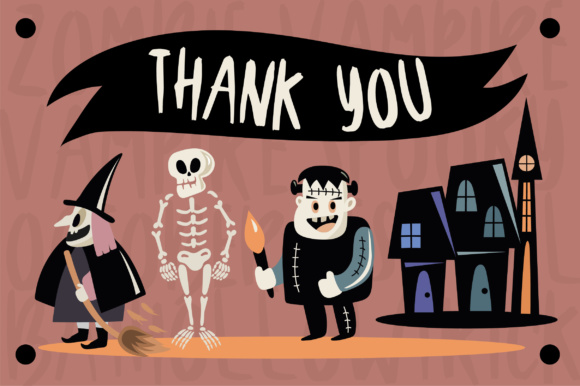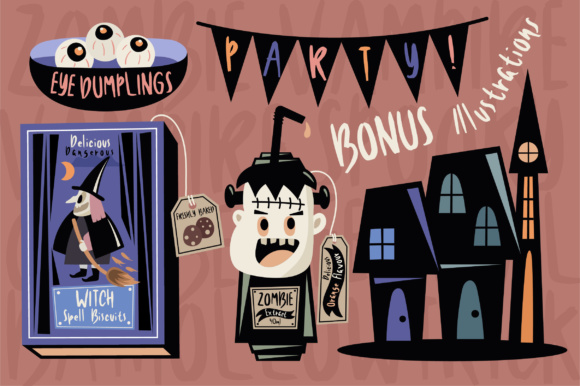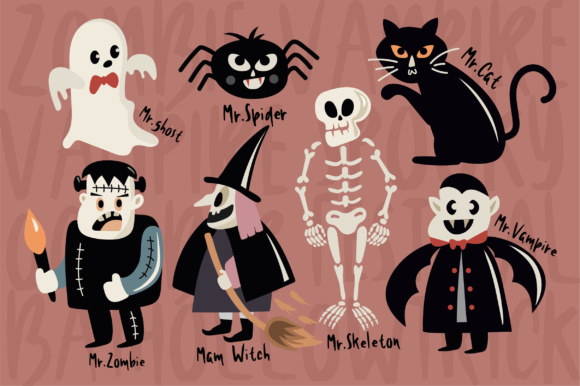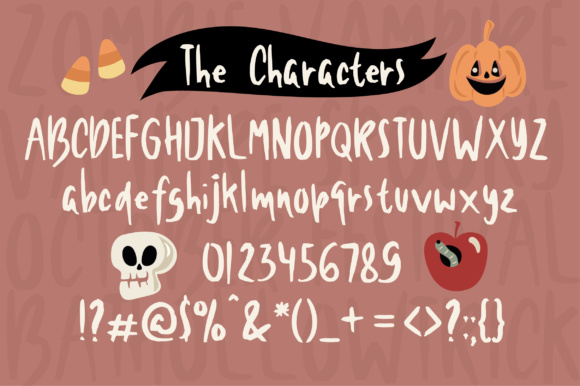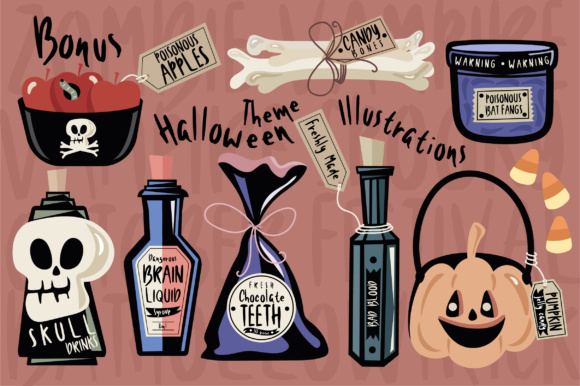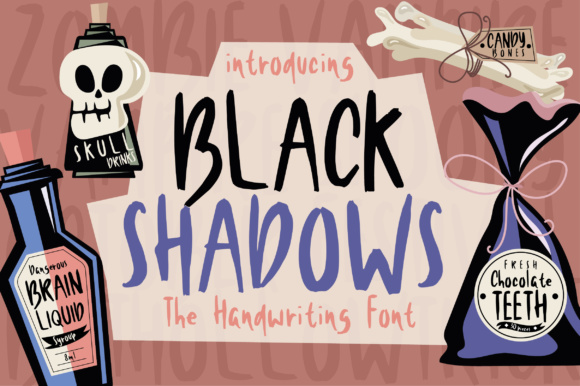
The Creepy, Cool World of Black Shadows Font
Have you ever been working on a design project, and suddenly, you’re stuck on finding the perfect font? I recall a project where I was tasked with creating a spooky Halloween-themed design for a client. As I scrolled through font after font, nothing seemed quite right – until I stumbled upon Black Shadows. This handwriting font has been a game-changer for horror and fun-themed designs, and I’m excited to share my experience with you.
An Honest Review of Black Shadows Font
- 💀 **Unique and quirky style**: Black Shadows has a distinctive, handwriting-like quality that adds a touch of personality to any design.
- 🎃 **Perfect for horror and fun themes**: The font’s eerie feel makes it ideal for Halloween-themed designs, but it’s also versatile enough for other creative projects.
- 🤩 **Includes 22 Halloween illustrations**: The bonus illustrations are a fantastic addition, providing extra creative value for designers.
- ✅ **Easy to read**: Despite its quirky style, Black Shadows remains surprisingly legible, even in smaller sizes.
While Black Shadows is an excellent font, there are a few minor limitations to consider:
- 🤔 **Limited use in formal designs**: Due to its playful, handwriting-like nature, Black Shadows might not be the best fit for formal or professional designs.
- ⚠️ **Some letters may require adjustment**: As with any font, you might need to tweak letter spacing or sizing to achieve the perfect look.
The Backstory Behind Black Shadows
Legend has it that Black Shadows was created by a designer who wanted to capture the essence of a spooky, mystical world. Inspired by old horror movies and creepy abandoned mansions, the designer crafted a font that’s both eerie and endearing. While the true story might be fictional, one thing is certain – Black Shadows has become a beloved font among designers and crafters.
| Font Name | Black Shadows Font |
| Author | Caoca Studio |
| Q: What type of designs is Black Shadows best suited for? | A: Black Shadows is perfect for horror and fun-themed designs, such as Halloween decorations, party invitations, or spooky-themed branding. |